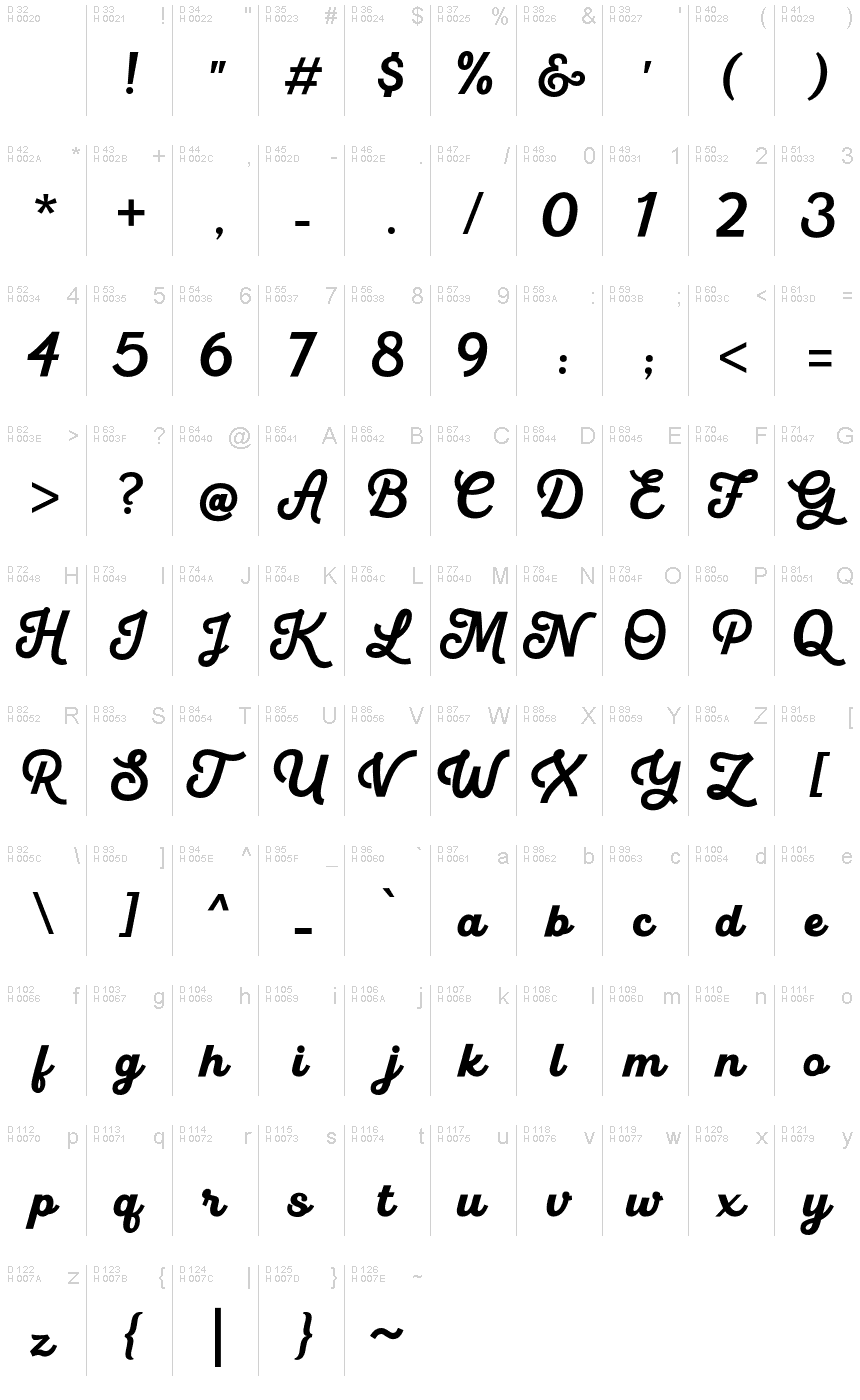
MerciaScript
Mercia Script, crafted by the talented Letterflow, is a stunning semi-bold font that exudes the charm of retro calligraphy. Its elegant curves and fluid strokes make it perfect for projects seeking a touch of nostalgic sophistication. Ideal for wedding invitations and stationery, Mercia Script adds a timeless elegance to any design. It also lends itself beautifully to branding projects, capturing attention with its unique blend of vintage and modern elements. So whether you're designing a logo, packaging, or a website with a vintage twist, Mercia Script will elevate your project to new heights.
Mercia has its own style and personality but without lacking legibility